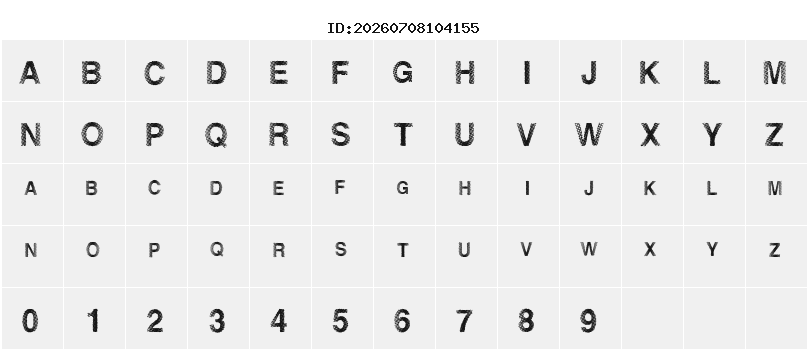
DanceLights Preview
• Font Name: DanceLights
• Designer: Xerographer Fonts Max Infeld
• Description: Made at Xerographer Studios in Chico,CA a custom template by max infeld
About DanceLights.ttf
DanceLights.ttf is a modern, elegant sans-serif font designed for ultimate readability and visual harmony. Perfect for branding, headlines, web design, and print materials.